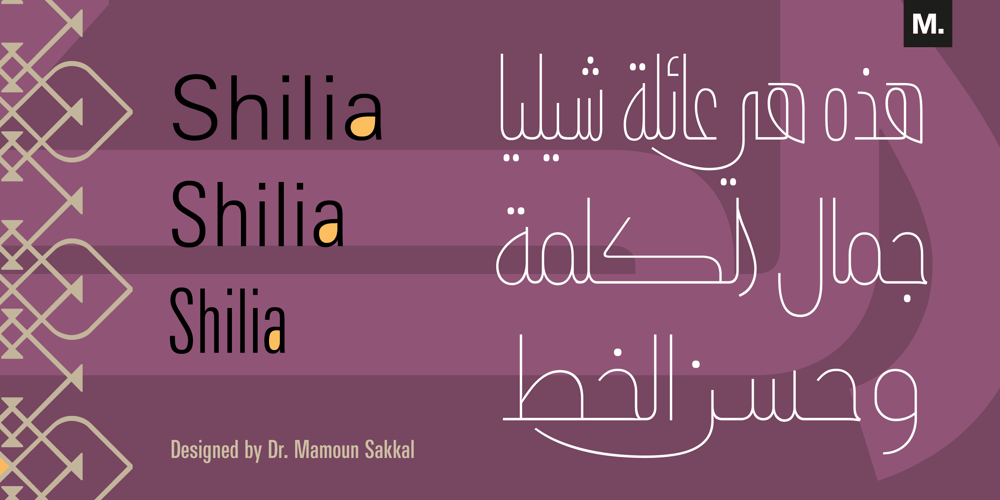
Shilia
Shilia font
Shilia Font Family was designed by Mamoun Sakkal and published by Linotype. Shilia contains 21 styles and family package options. SHILIA – AN ARABIC FONT THAT LIVES HAND IN HAND WITH LATIN TEXT CHARACTERSA special design principle underlies the Arabic font Shilia created by Mamoun Sakkal: the form of the characters means that they harmonise happily with sans serif Latin fonts, such as Univers. Because of this, Shilia is the ideal choice for any bilingual project and for use in international corporate branding.Shilia™ had its beginnings in the 1970s. Taking one of the oldest variants of Arabic script, the minimalist Kufic, as his inspiration, Mamoun Sakkal fashioned simple stroke shapes that are combined according to a geometric grid. Shilia is at home in both worlds, that of the East and that of the West. And although Shilia has been primarily designed to be used as a display font, it is also ideal for setting shorter texts.Before being published by Linotype, Shilia underwent major adaptation and updating, and is now available in the modern OpenType format. Mamoun Sakkal increased the characters available per individual typeface variant to over 1,800, and his daughter, Aida Sakkal, worked on programming the extensive OpenType features for the font. There are numerous ligatures that can be used to provide suitable variation and avoid repetition within a given context, and many special features such as the dots under the initial and final segments of words being automatically centralised.Shilia not only supports Arabic, but also Persian and Urdu. Special character combinations for setting texts in these languages, particularly Urdu, are provided through OpenType. And there are a total of 19 stylistic sets with additional character variants available to the user.An example of Urdu textShilia is available in eight weights, from UltraLight to Black. The corresponding condensed versions are in the course of preparation. Along with the Arabic characters, all of the typeface versions include matching Latin alphabet letters of Adrian Frutiger’s Linotype Univers® family, making Shilia intrinsically suitable for setting bilingual texts. A set of ornaments carefully designed to allow for numerous compositions of bands and decorative patterns rounds off the range of characters on offer.With its 21 weights, Shilia is one of the most extensive of Arabic typeface families that is currently on the market. Its clear and well-balanced forms emphasise the linear nature of the font without allowing it to appear sterile or artificial. Shilia not only cuts a good figure as a display font for signage or in artistic projects, thanks to its substantial range of features, the font family can also be used to set texts, such as corporate and administrative documents. In addition, but the full compatibility between the Arabic and Latin characters makes Shilia the perfect choice for international and multilingual design projects.